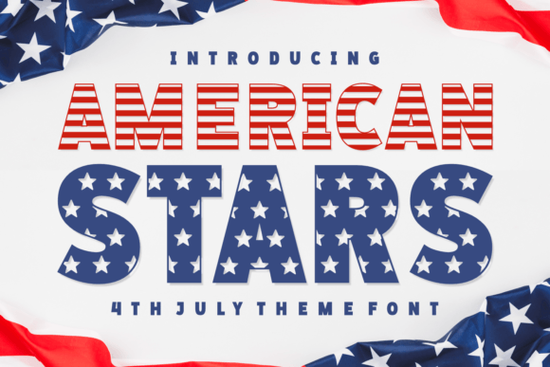
The American Stars Font is a unique typography option that brings the essence of American pride into any design. With its bold and distinctive letters, this font captures the spirit of patriotism, unity, and liberty. It’s a great choice for anyone looking to add a touch of national identity to their projects, whether it's for a special event, a personal creation, or a business endeavor.
Designed with attention to detail, the American Stars Font seamlessly integrates the iconic stars and stripes into each letter. This makes it stand out in headlines, banners, and signage. Its decorative style adds visual interest while maintaining readability, making it versatile for various applications. From Independence Day celebrations to Veterans Day tributes, this font can enhance any project that honors American values.
The American Stars Font is ideal for designers, crafters, print-on-demand sellers, small businesses, and creative hobbyists. Whether you're creating t-shirts, posters, or digital graphics, this font can help you express your message with confidence and flair. Its ability to convey strong emotions through typography makes it a valuable addition to any designer’s toolkit.
How to Use the American Stars Font
One effective way to use this font is in headlines or titles. Its bold nature draws attention and sets the tone for your work. It also pairs well with simpler fonts for contrast, allowing you to create a balanced and visually appealing layout. Don’t be afraid to play around with placement and spacing to achieve the desired effect.
Why Choose the American Stars Font?
There are several reasons why the American Stars Font stands out among other decorative fonts. First, it carries a strong thematic element that resonates with many people, especially those who value American culture and history. This makes it a meaningful choice for projects that aim to connect with a specific audience.
Another advantage is its versatility. While it’s perfect for patriotic themes, it can also be used in more general contexts where a bold and eye-catching font is needed. Its design allows it to adapt to different styles and settings without losing its impact. This makes it a practical option for a wide range of creative endeavors.
By incorporating the American Stars Font into your designs, you can add a layer of meaning and emotion that enhances the overall message. It’s a powerful tool for anyone who wants to express pride, creativity, or a sense of community through typography.
Whether you’re working on a personal project or a commercial one, this font can help you make a lasting impression. Its combination of style and symbolism makes it a standout choice for designers looking to elevate their work with a touch of national pride.
Take the time to explore how the American Stars Font can fit into your creative process. Try it out in different contexts and see how it transforms your designs. With its unique blend of aesthetics and meaning, it’s sure to become a favorite in your collection of fonts.
- Experiment with different design elements to see how it looks in action.
- Use it in headlines, banners, or signage for maximum impact.
- Combine it with other fonts to create a balanced and professional look.